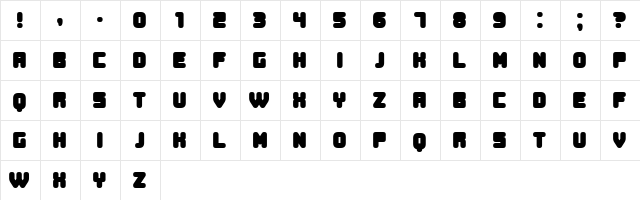
Duration Book Bold
Design Context for Duration Book Typeface
Duration Book takes a measured approach to typography — its balanced proportions and neutral character make it a reliable workhorse for both digital and print work. The heavy weight commands attention and anchors typographic hierarchies.
Pro Tip: Use Duration Book in both headline and body roles to test its range before committing to a single application.